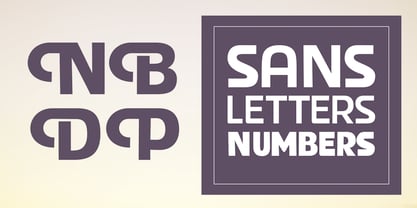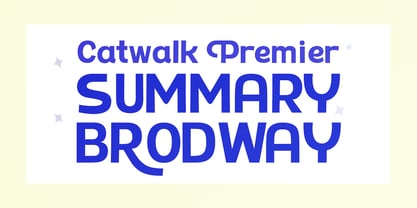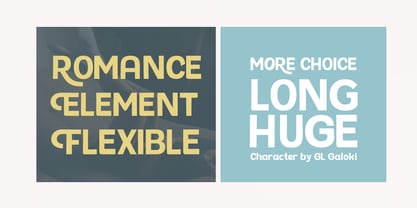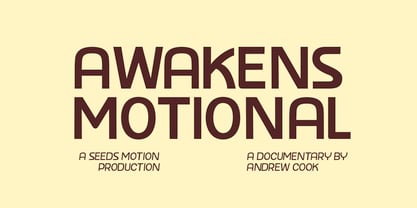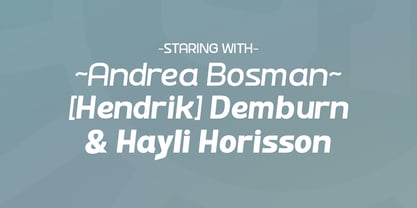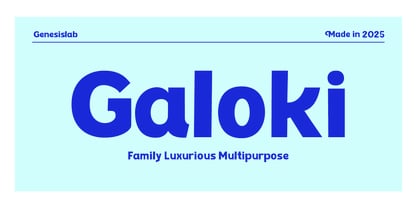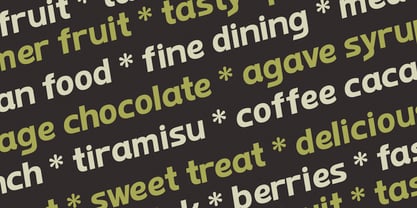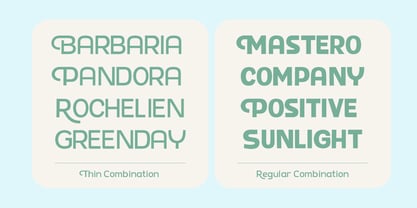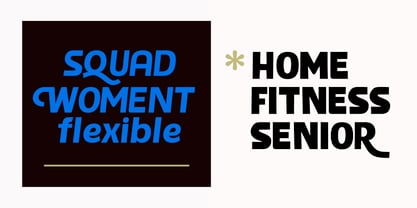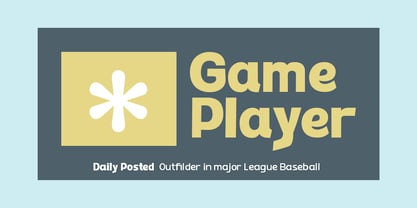
GL Galoki
by Genesislab
The GL Galoki Font Family was designed by Bustami Harun and published by Genesislab. GL Galoki contains 12 styles and family package options.
GL Galoki Family overall. One of the newest, hand-drawn with high accuracy. Rockines has the perfect ease and refinement for your next project. This font perfectly represents the aesthetics of your Project.
Family Rockines is a bold sans serif font with ligatures, symbols, Swash Alternates, The typeface is very flexible with 12 styles making it a great addition for designers looking to enrich their resource library. It fits perfectly with print and digital designs such as posters, magazines, websites, and mobile applications.a compact alternative!